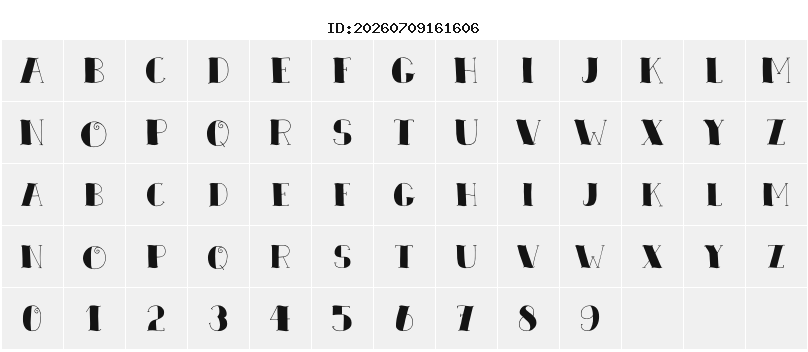
• Font Name: DK Zeebonk
• Designer: David Kerkhoff
DK Zeebonk.otf is a modern, elegant sans-serif font designed for ultimate readability and visual harmony. Perfect for branding, headlines, web design, and print materials.